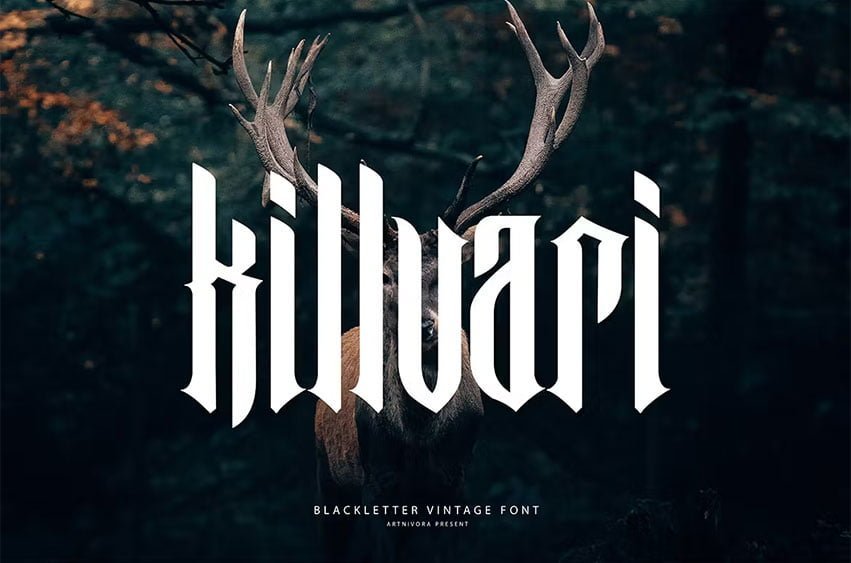
Killvari Font is a simple and blackletter font. So perfect for you who needs a typeface for logo designs, magazine, social media, brochure, and many more.